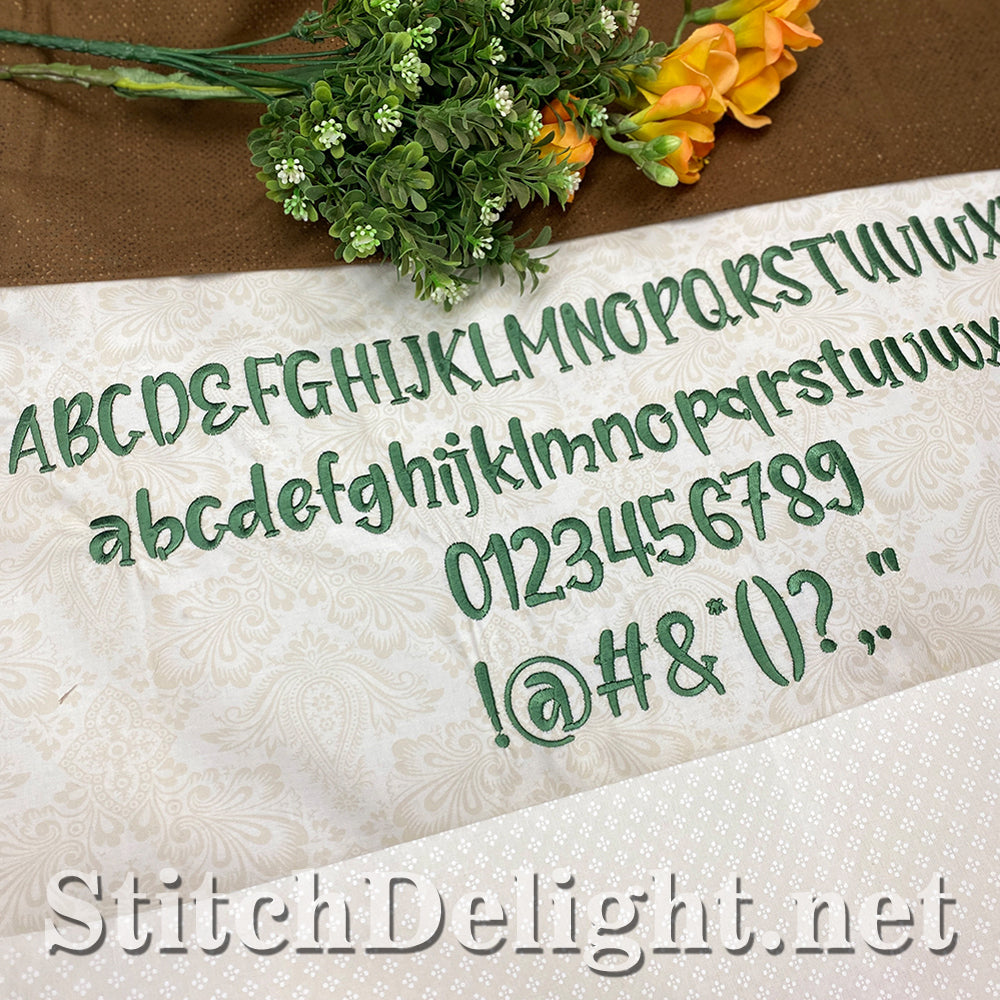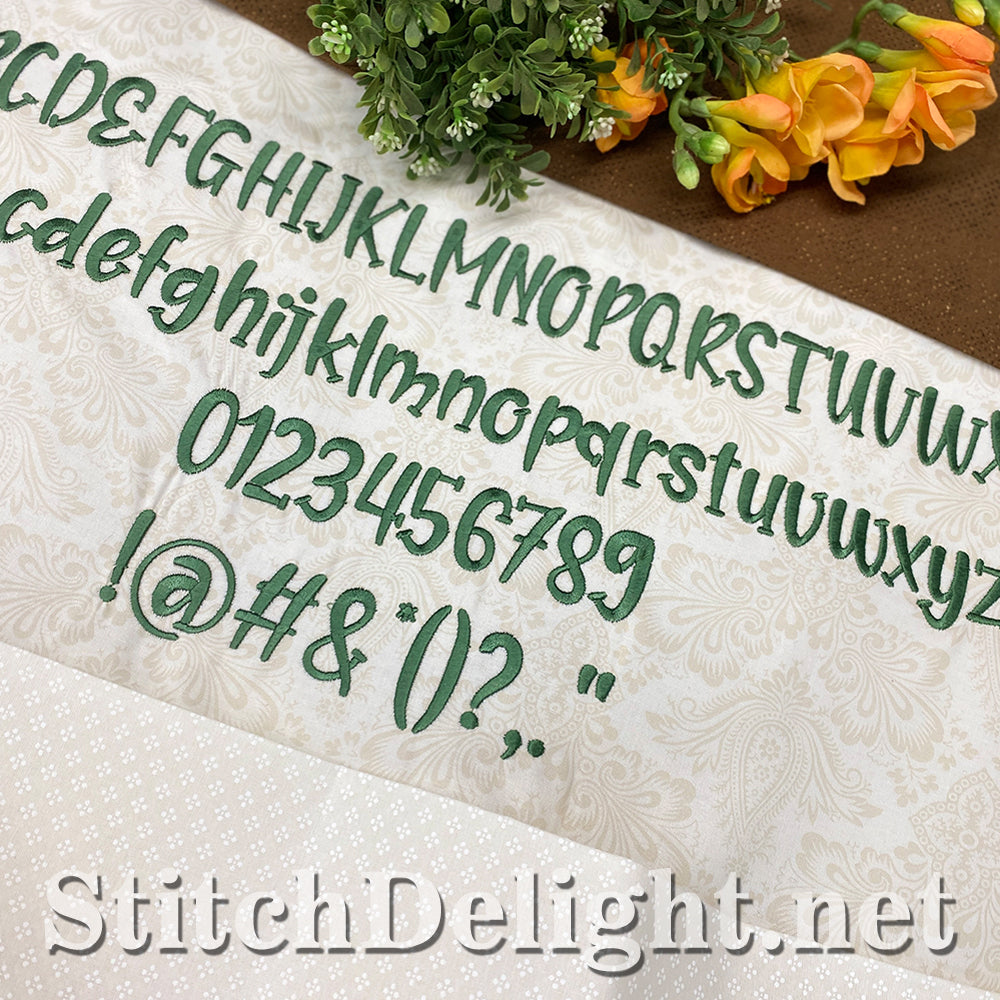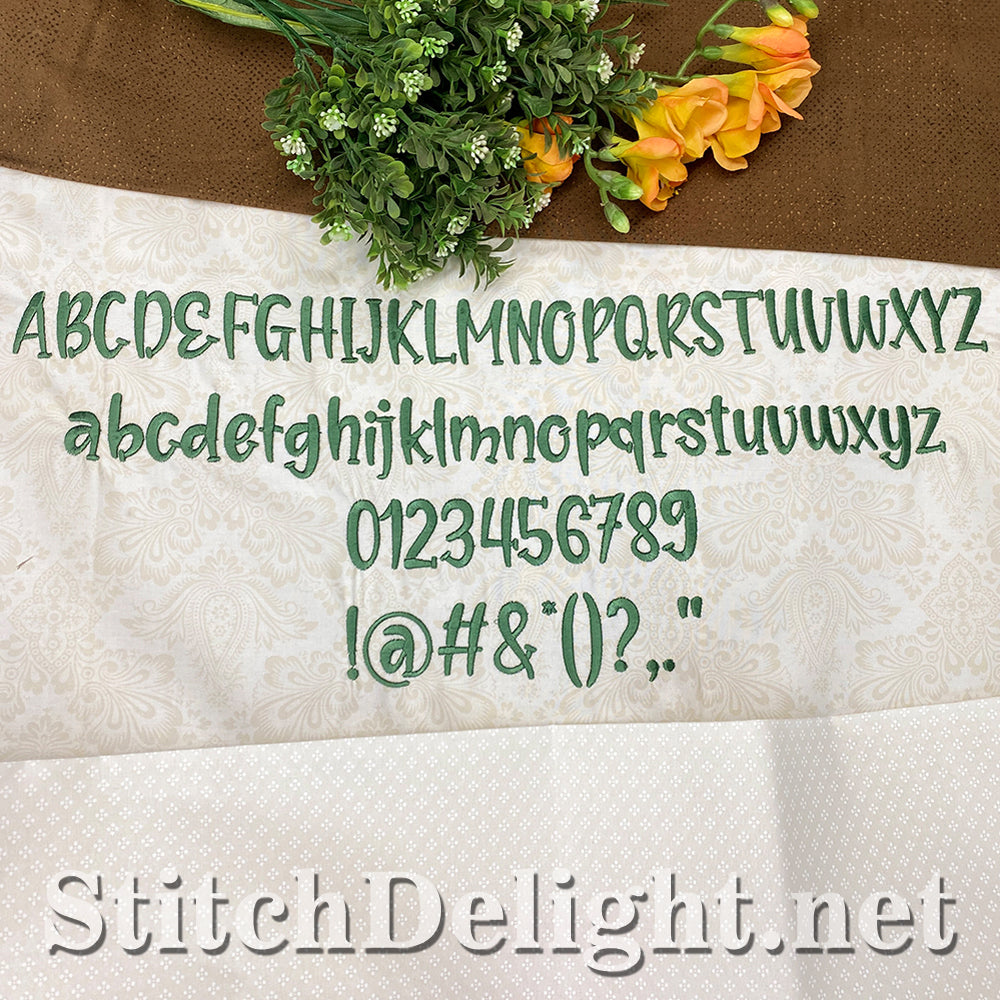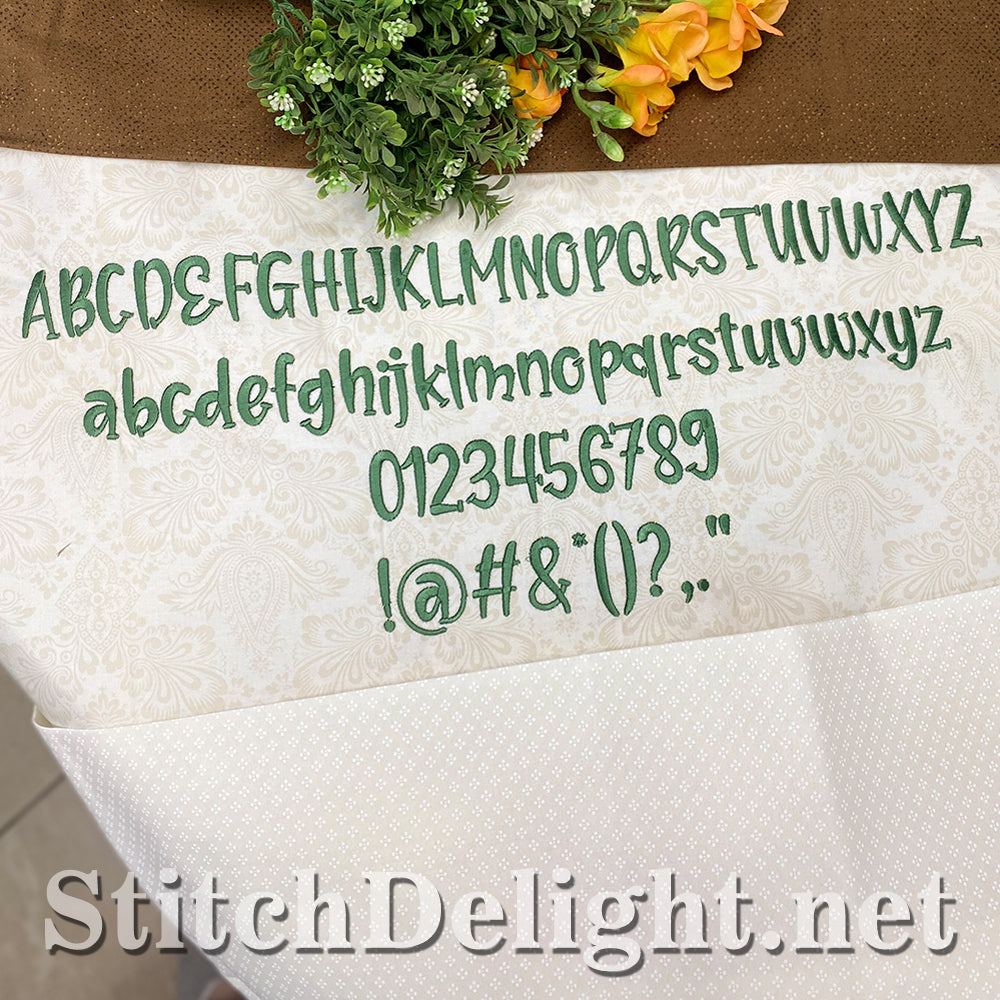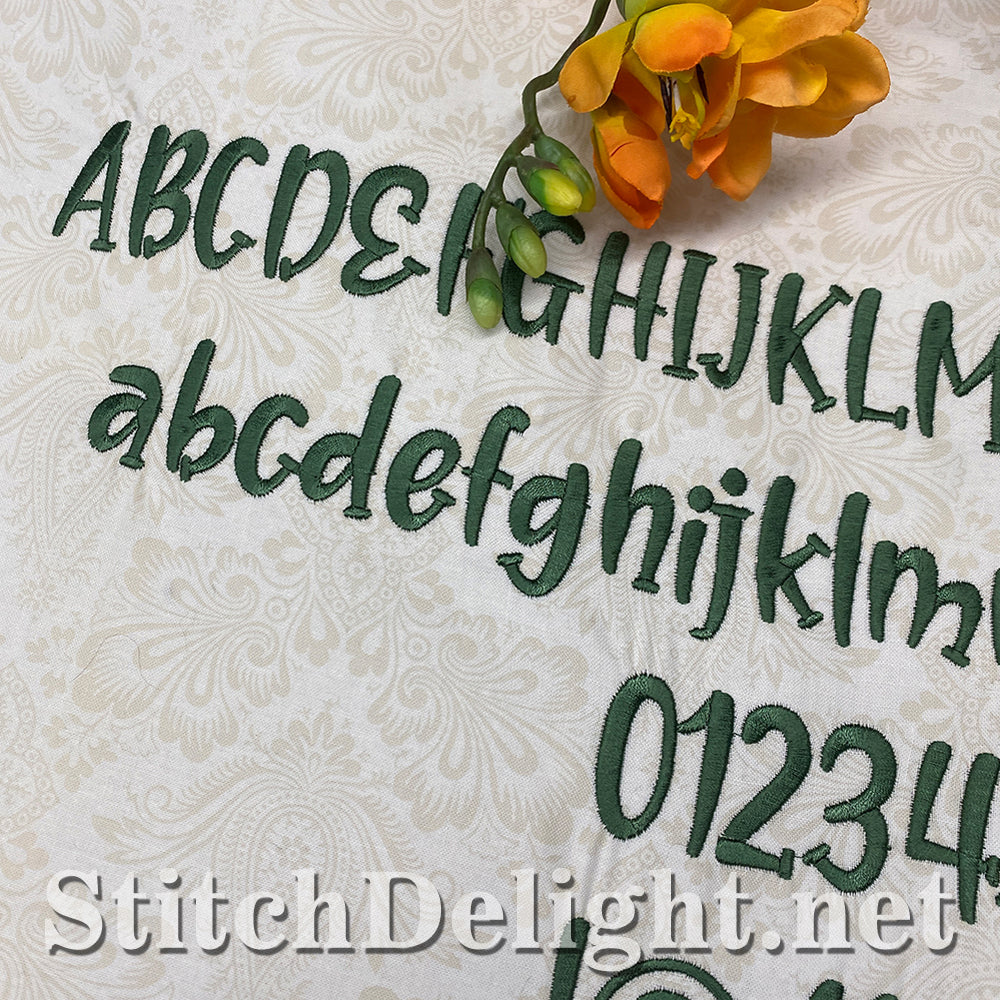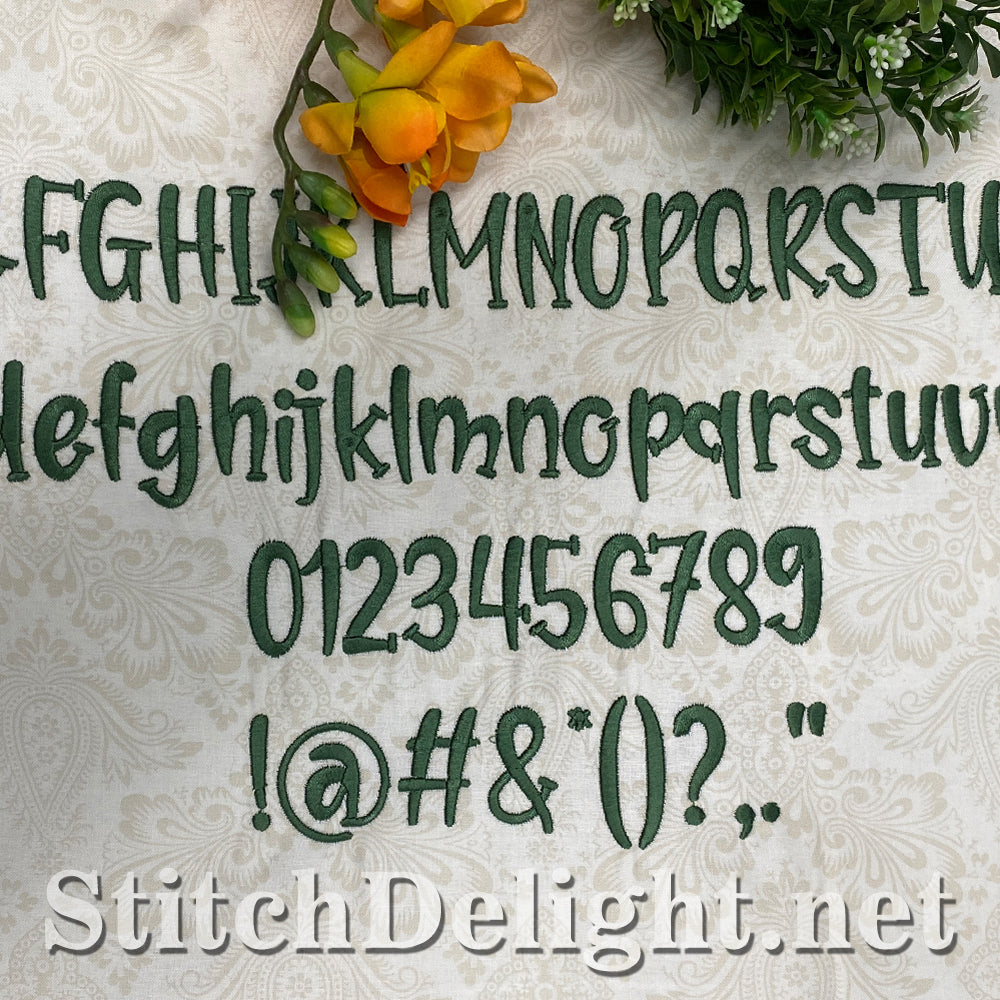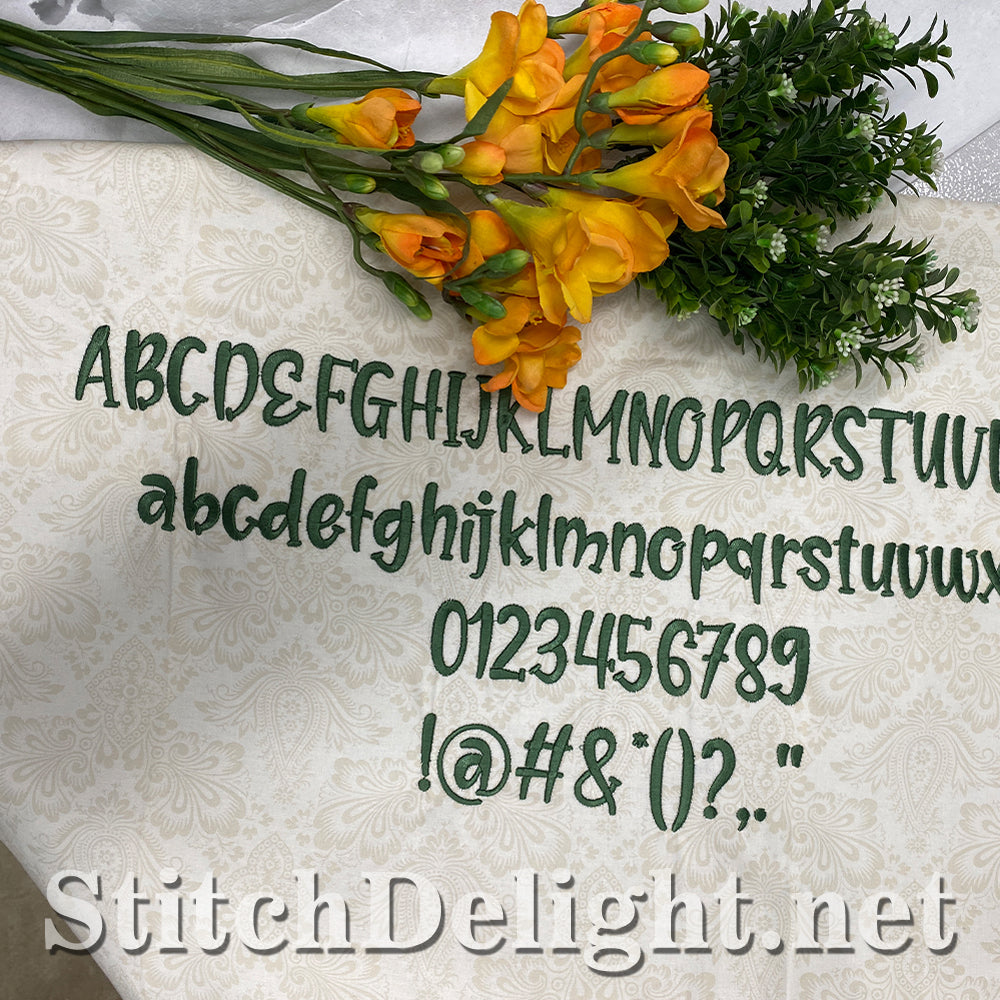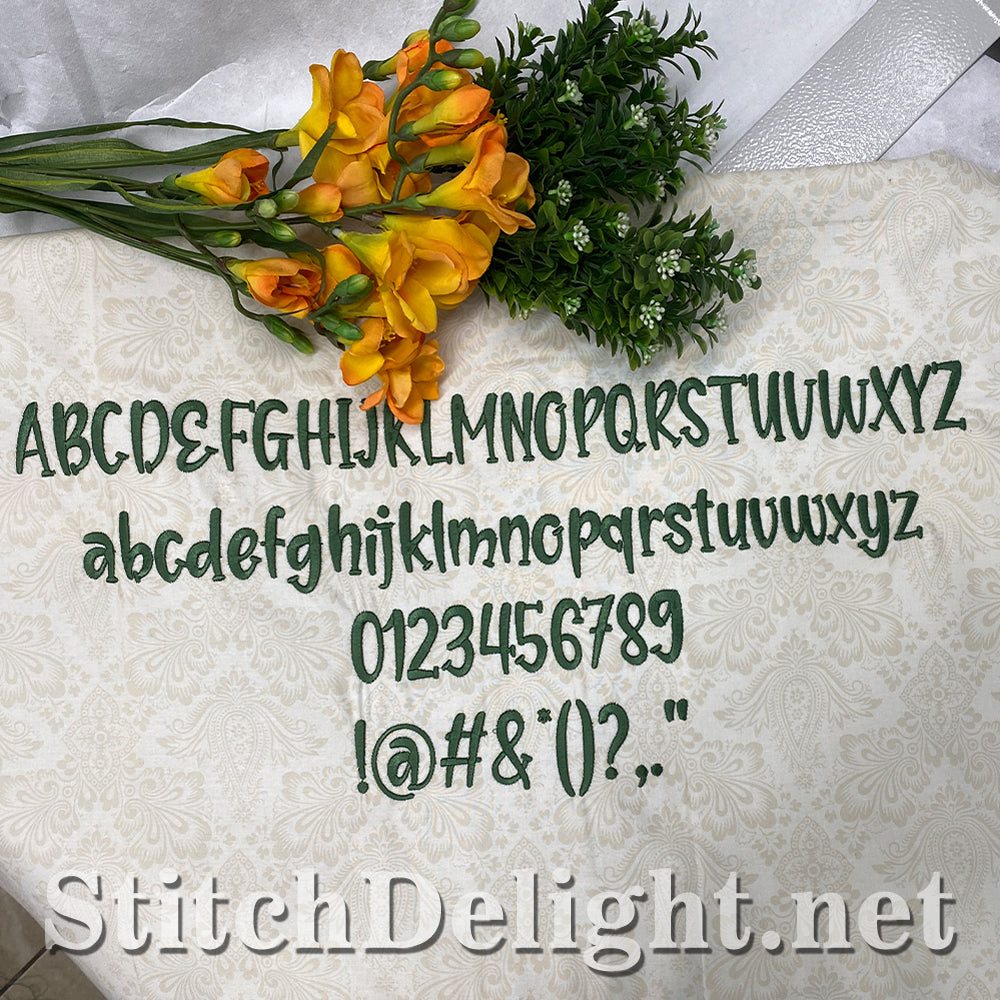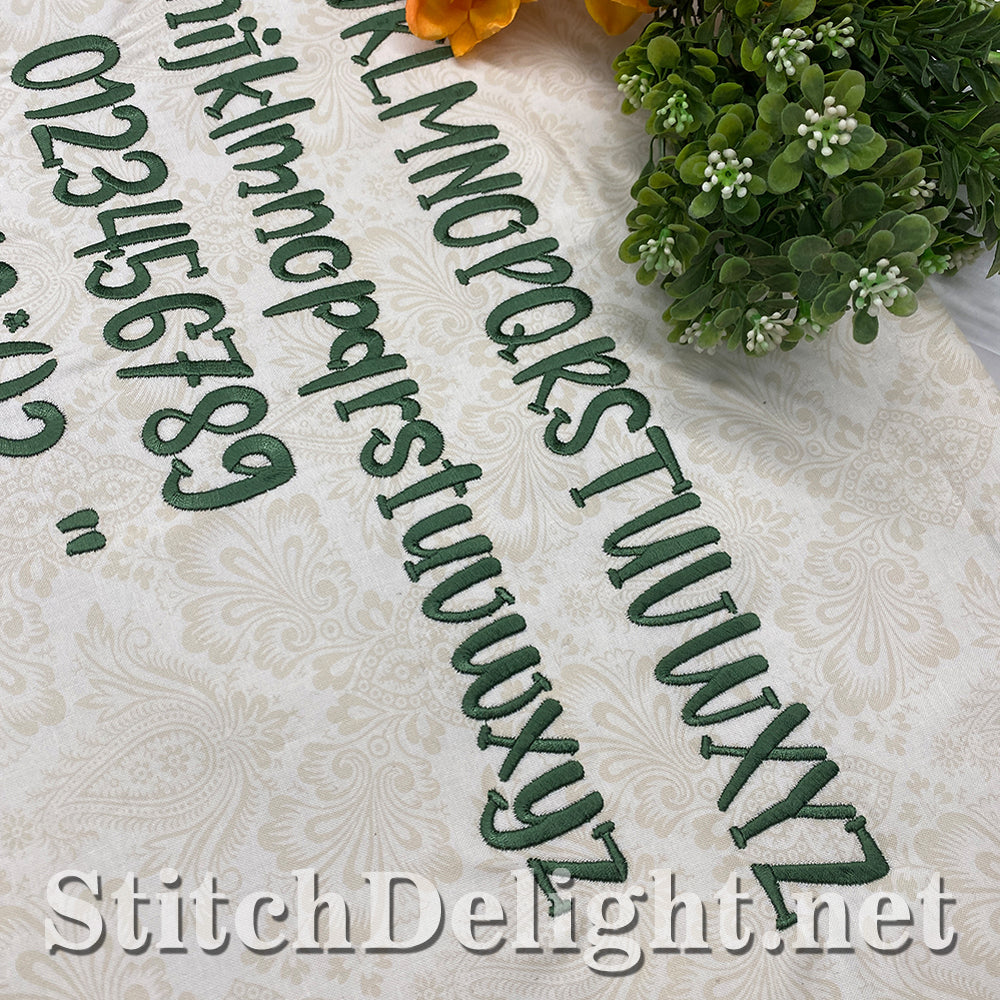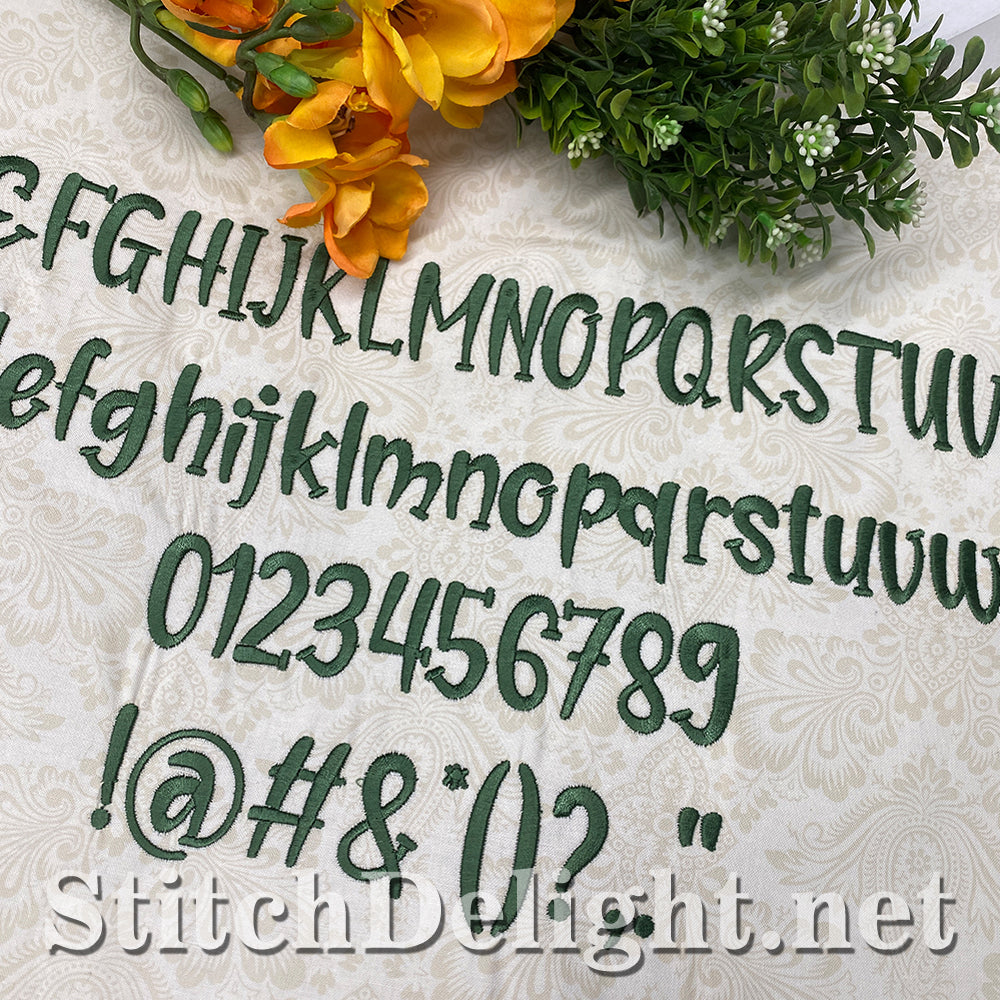
Specially made for the very popular Safari Collectors Font, this font has an average height of 1.4" The larger letters makes it super easy to read from far, so use this where you'd like the text to be easily readable from a distance.